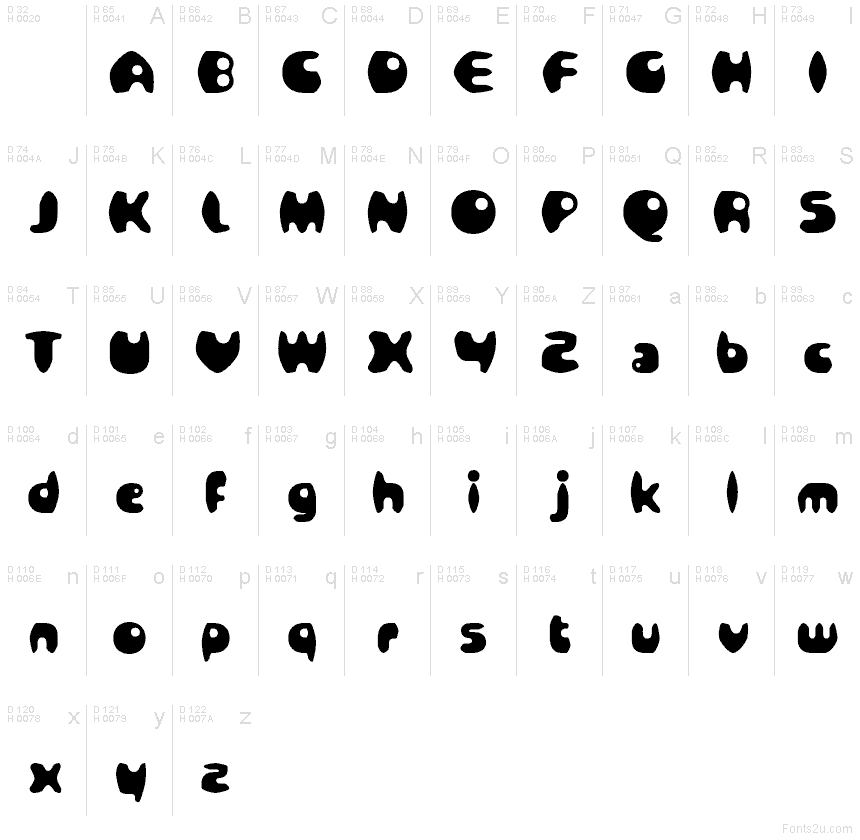
CS Globe Drawn font by Craft Supply Co. is a free bold cartoon display font from the CS Globe family. It stands out with plush, pebble-shaped letters—inky blobs that pinch into playful apertures and a bouncy rhythm that feels hand-squeezed. Big, soft curves and chunky silhouettes give it volume and joy while staying surprisingly readable.
Using CS Globe Drawn, headlines pop on kids’ packaging, snack labels, bubble tea menus, game titles, event posters, and sticker sheets. The rounded weight projects warmth, and the generous counters keep short words crisp even at smaller sizes. Pair this free font with a lean geometric sans for body copy, and tighten tracking slightly for oversized display lines.